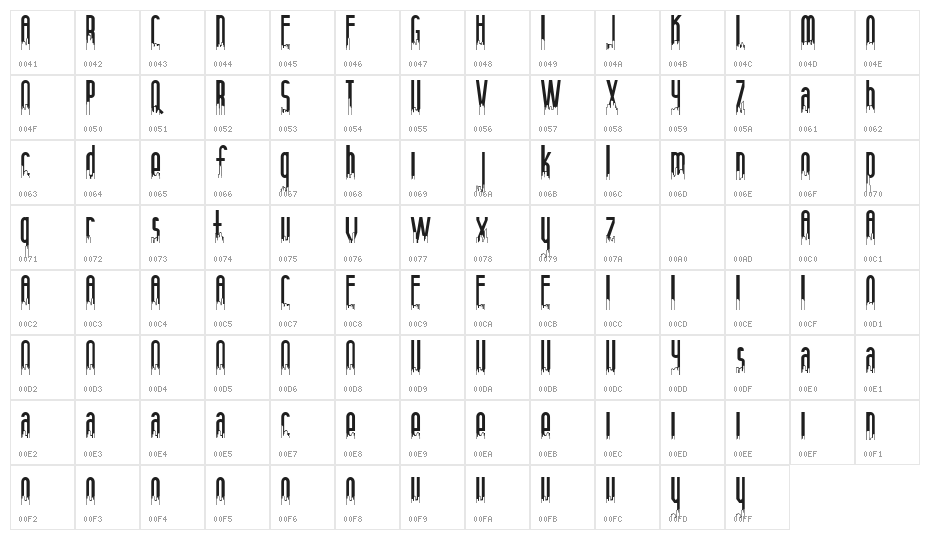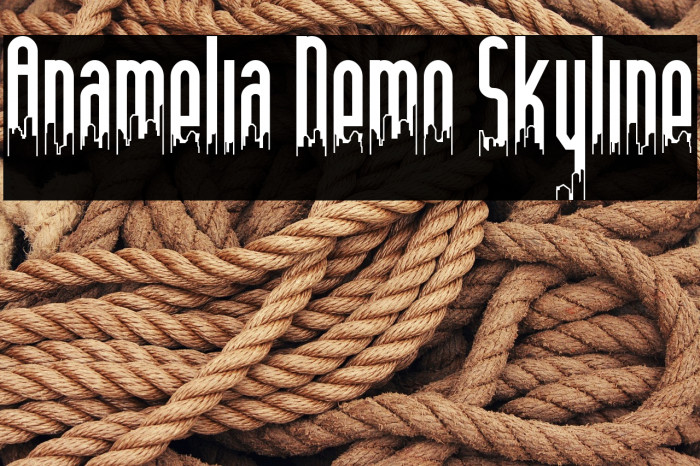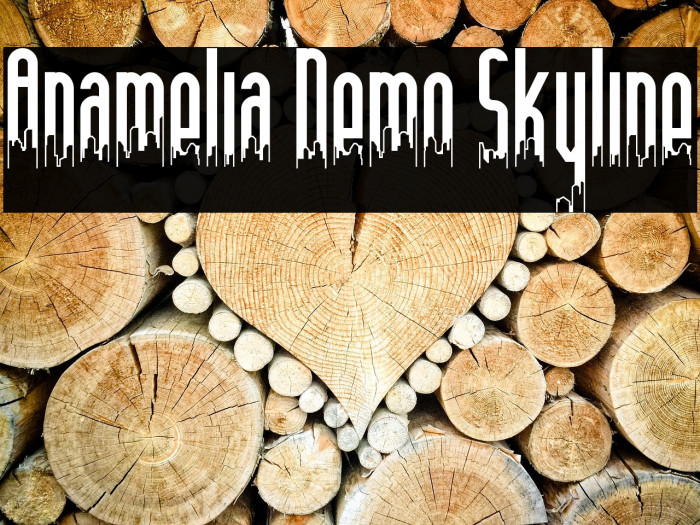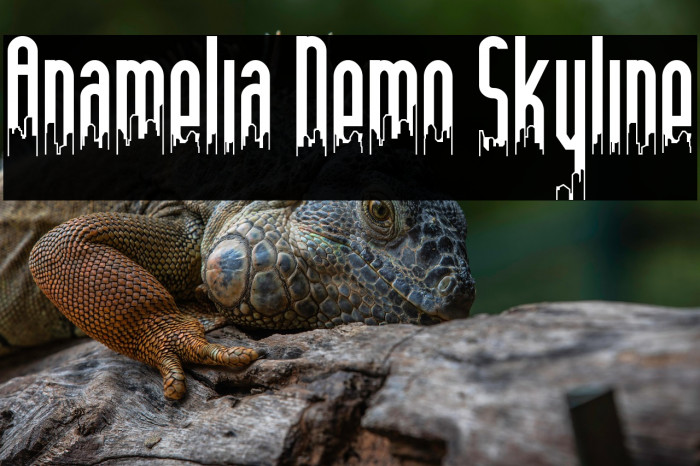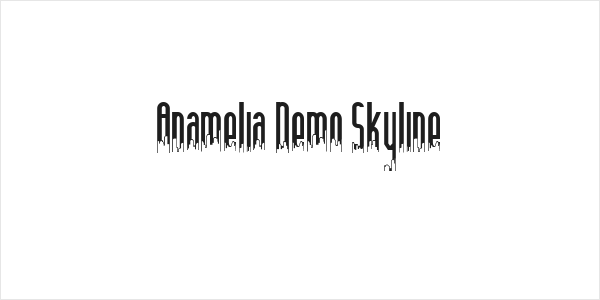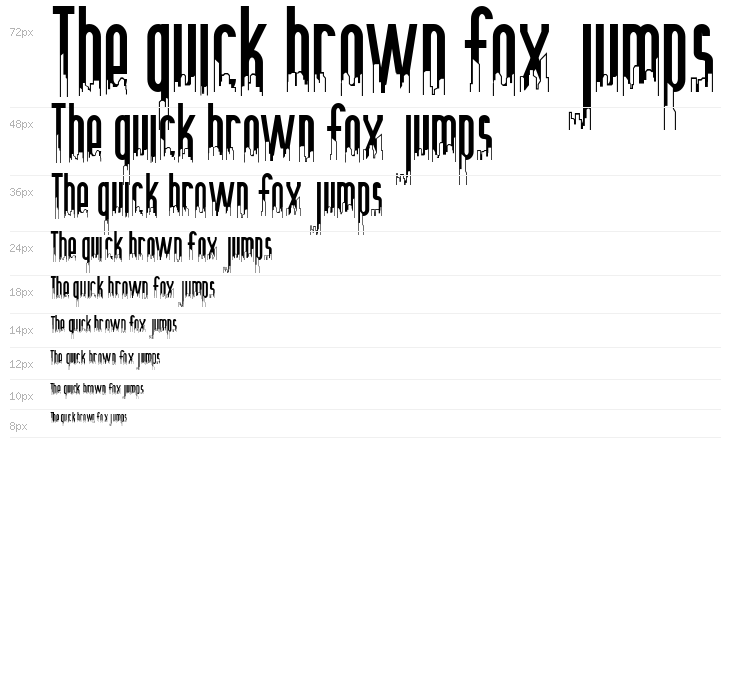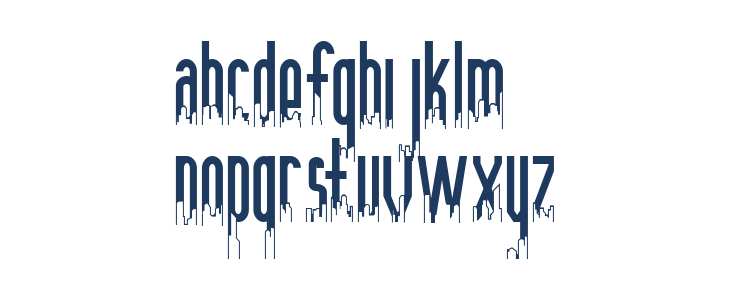
Anamelia Demo Skyline Font
Anamelia Demo Skyline Description
This font features a unique and striking design that incorporates elements of a city skyline into the letterforms. The characters are tall and narrow, with vertical lines that mimic skyscrapers, creating a dynamic and urban feel. The uppercase and lowercase letters maintain a consistent height, enhancing the architectural theme. The font's design is both modern and decorative, making it suitable for projects that require a bold and eye-catching typeface. The integration of the skyline motif adds a layer of complexity and creativity, making it ideal for branding, posters, and other visual media that aim to convey a sense of city life or modernity.